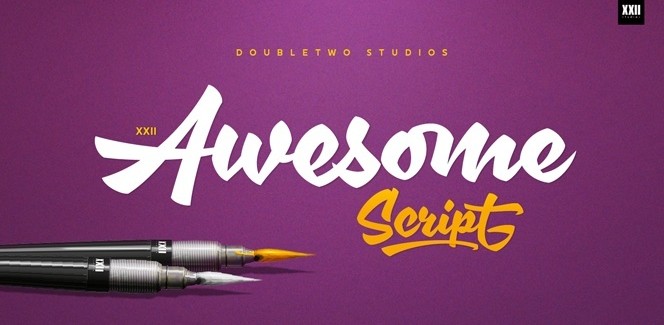
XXII AwesomeScript
XXII AwesomeScript font is one of those typefaces that captures your attention instantly. Very fresh and authentic display brush script designed by Doubletwo Studios, XXII AwesomeScript is combining two main features that really make it awesome – first is the preserved natural brush lettering feeling and second it is the professional digital refinement that could be sensed in every curve. The result is really amazing typeface with very strong and unique presence, own character and personality that reflects the environment in almost every aspect. If you look closer you will find how playful the XXII AwesomeScript is – the connection between letters create own rhythm accompanied and flavored by the mix of smooth curves with sharp angular elements.
Very fresh, friendly and authentic, this typeface is designed to help you create one-click logos, stunning signboards, and strong individual headlines as if they were made by true professional lettering artist. Using XXII AwesomeScript in high contrast combinations with lots of color is probably one of the best ways to get the best of it. Adding outlines, soft and harsh shadow effects is another great trick that could significantly improve your work and make it even more authentic though XXII AwesomeScript is so unique that you could practically might not need any additional improvements to make it shine more.
It is also great to find the enhanced OpenType compatibility of the font. Each character has some 13 alternates along with ligatures and multilingual support counting the total of 1K characters in a single typeface. Very flexible and diverse, XXII AwesomeScript is allowing you to customize almost everything you could possibly think of – from a single character to a whole headline. It’s easy and it is highly efficient – all alternates are professionally designed sophisticating the font even more and making it highly usable.
Unique, Strong, Original – the XXII AwesomeScript is a highly recommended typeface if you want to add to your work extra energy combined with authenticity.